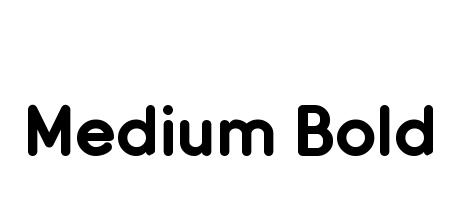
Medium Bold
By Gazsore Zoltan
Medium Bold: A font that speaks volumes without shouting. Its confident weight commands attention, yet its approachable style ensures readability. It''s the ideal blend of strength and subtlety, perfect for headlines that need to make a statement without being aggressive. A versatile choice for any project needing a touch of boldness.